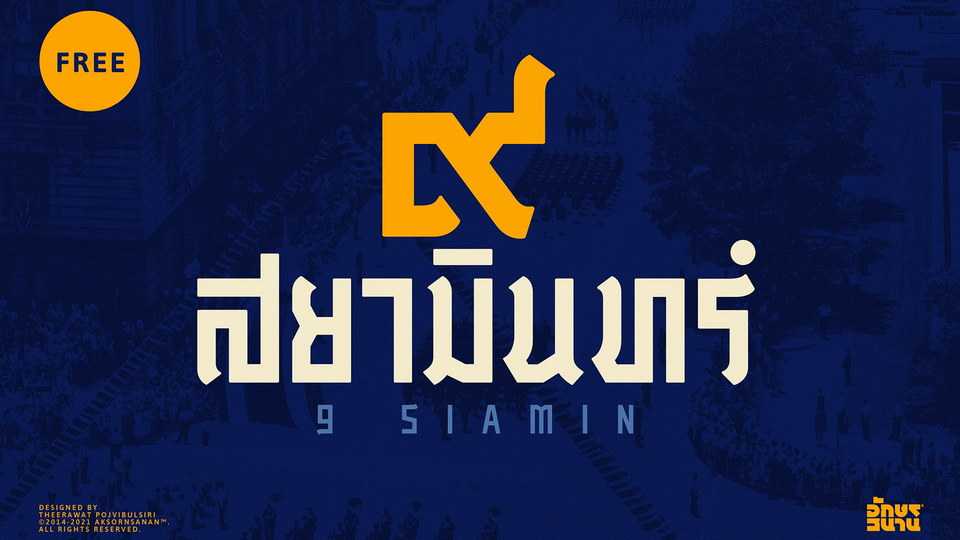
Download 9 Siamin™ font., one of the revival typefaces in the project “9 fonts for the King” by Thai Printing Association, initiated in the year 2017 in the memorial of King Rama IX.
Designer: Theerawat (Aksornsanan) Pojvibulsiri